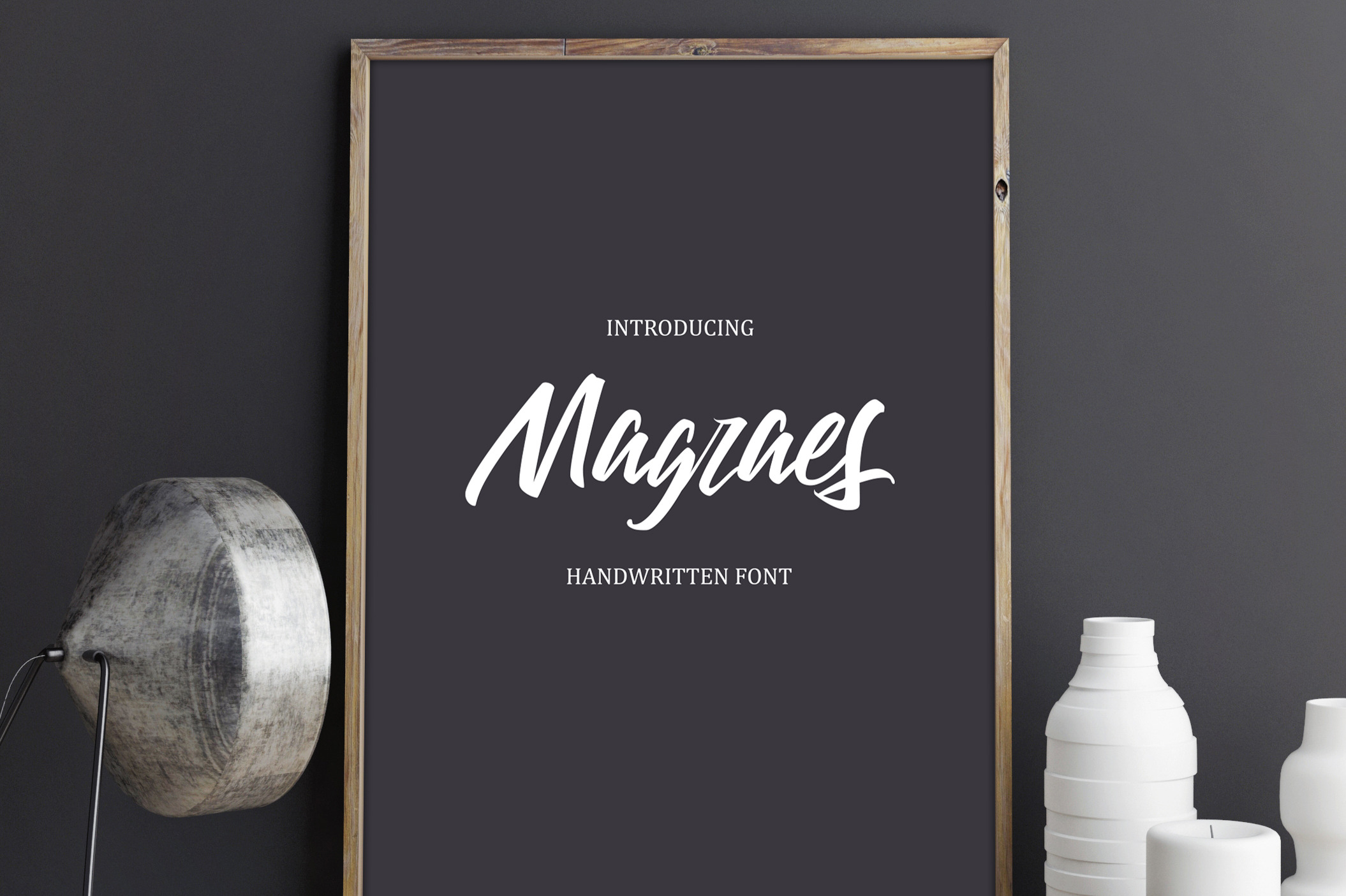
Magraes Casual Font
"INTRODUCING MY NEW FONT"
"MAGRAES HANDWRITTEN FONT Say Hello" , A font that you were meant to find, and is now destined to be with you . Magraes is handletter brush font With my clean handlettering style combining all the letters with matching fit for all usage "in adobe illustrator, photoshop and others. :)"